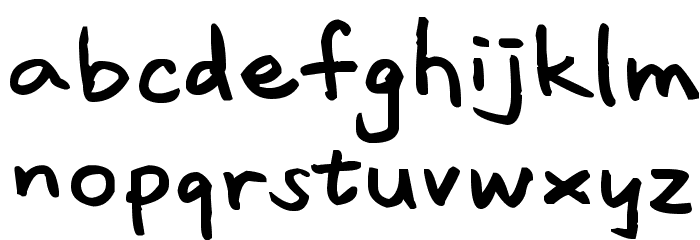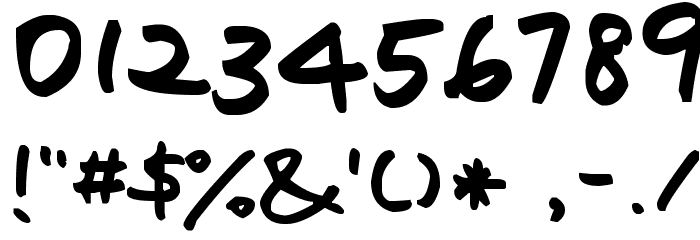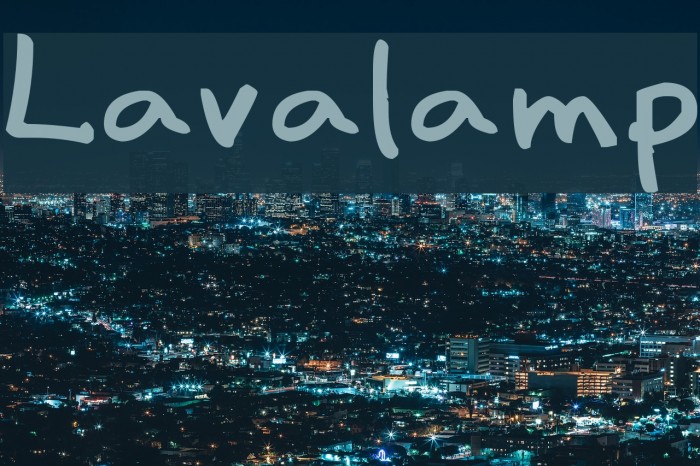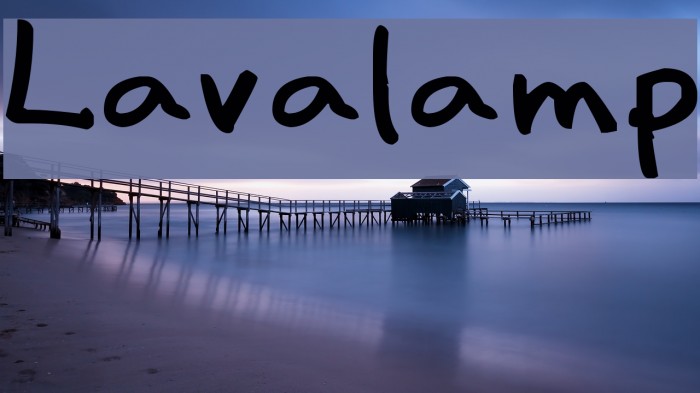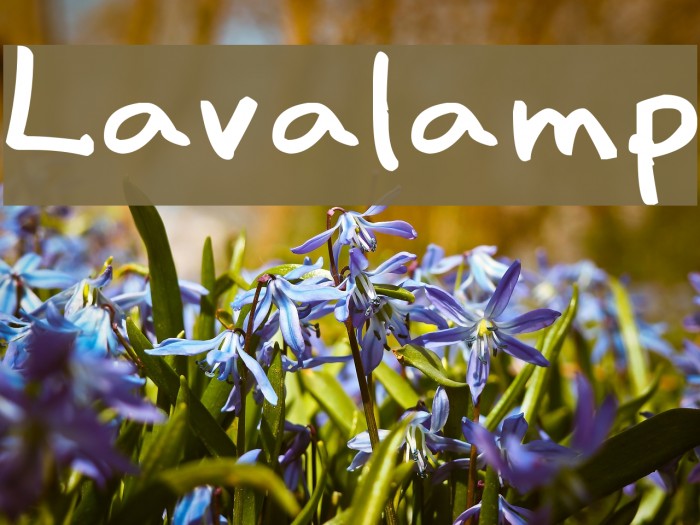
Lavalamp Font
This font features a playful and casual handwritten style, characterized by its uneven strokes and organic flow. The letters have a lively and dynamic appearance, with varying thickness that adds to its informal charm. The uppercase and lowercase letters maintain a consistent style, while the numbers and special characters integrate seamlessly. This font's unique personality makes it stand out, offering a friendly and approachable vibe. Its design is reminiscent of hand-drawn lettering, making it suitable for projects that require a personal touch.
A playful, casual handwritten font with uneven strokes and organic flow.
- Proposed Projects: Ideal for greeting cards, children's books, casual branding, and social media graphics.
- Category: Handwritten
- Overall Style: Casual, Playful
- Use Case: Headlines, Informal text, Creative projects